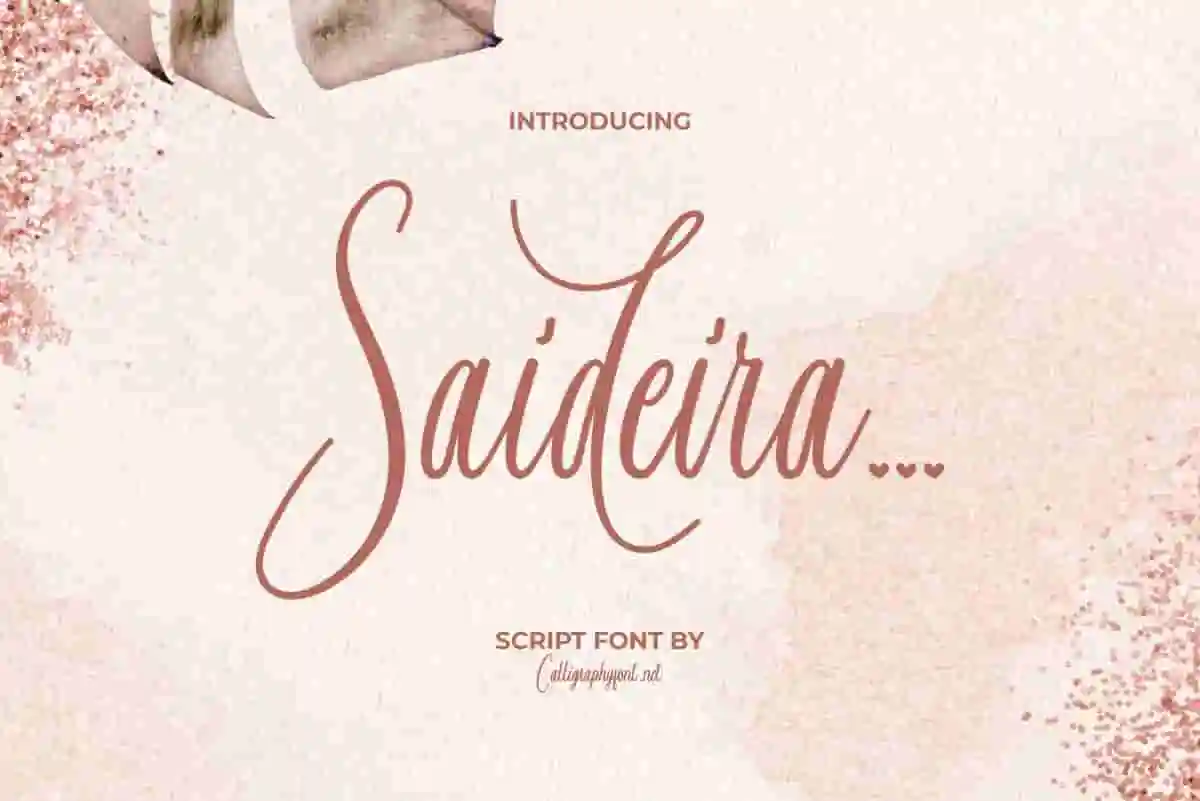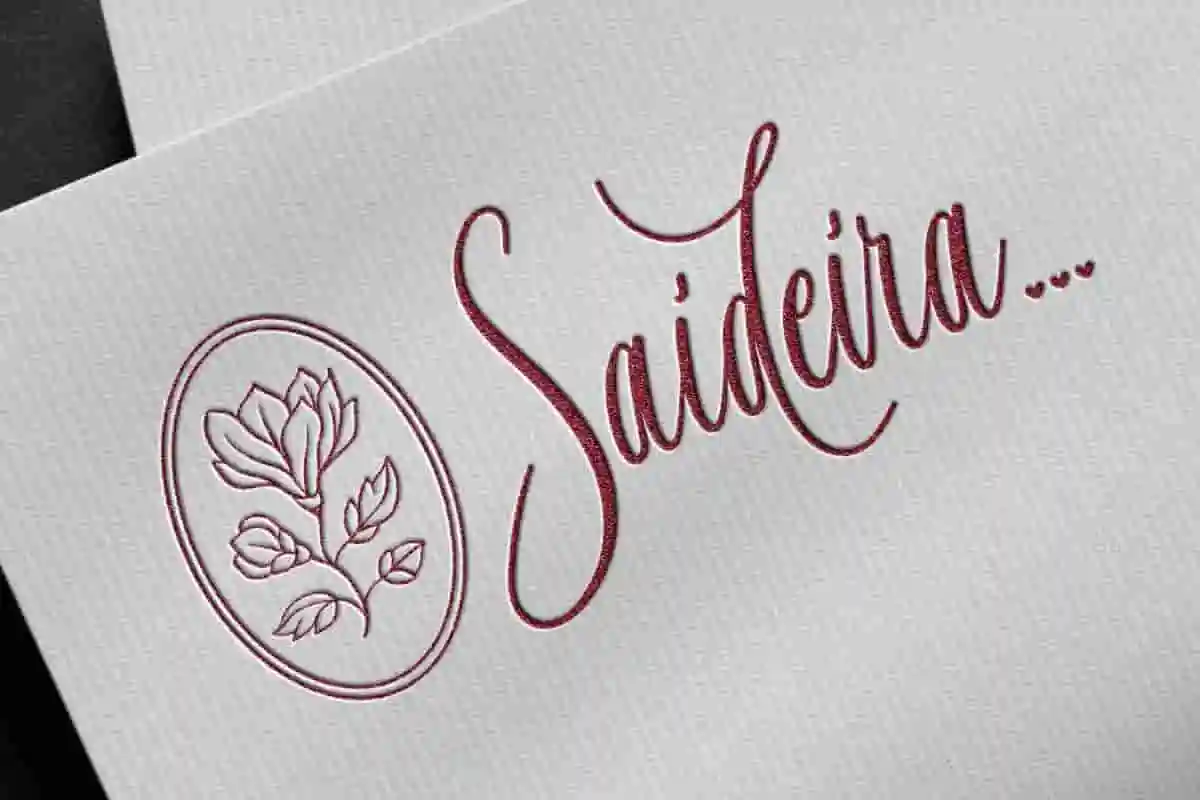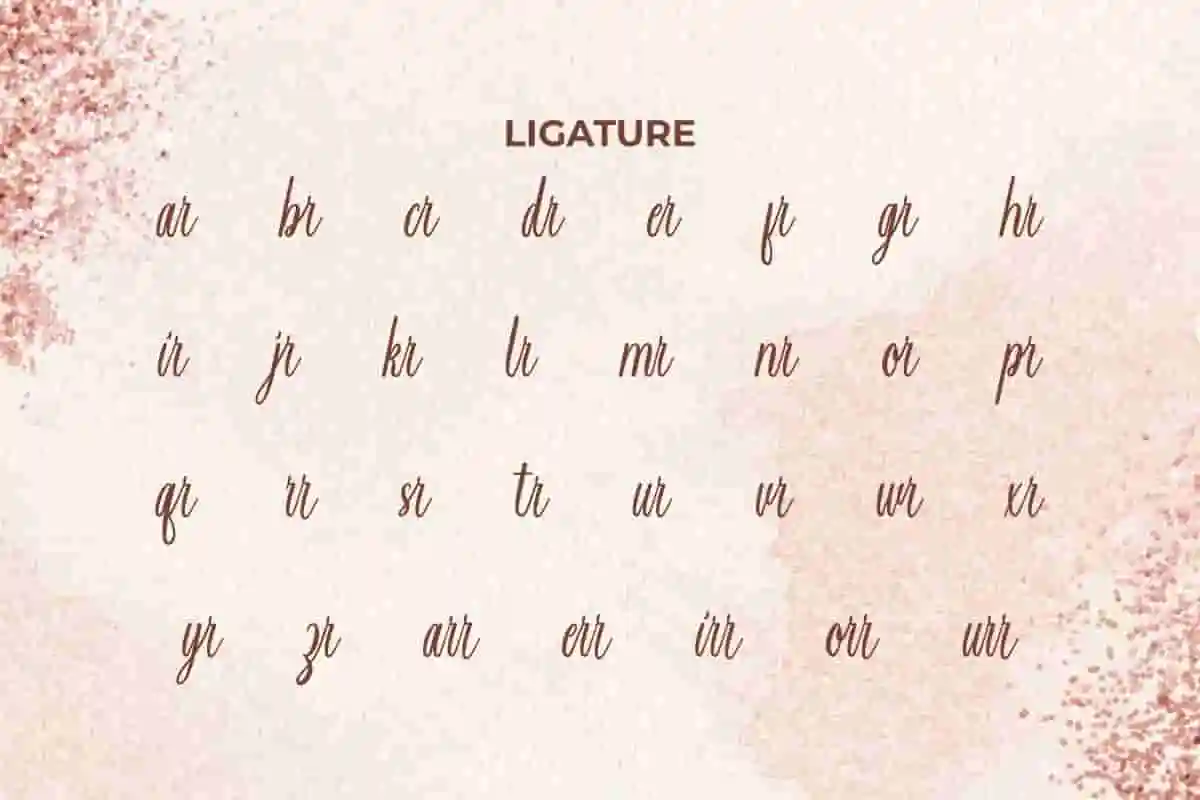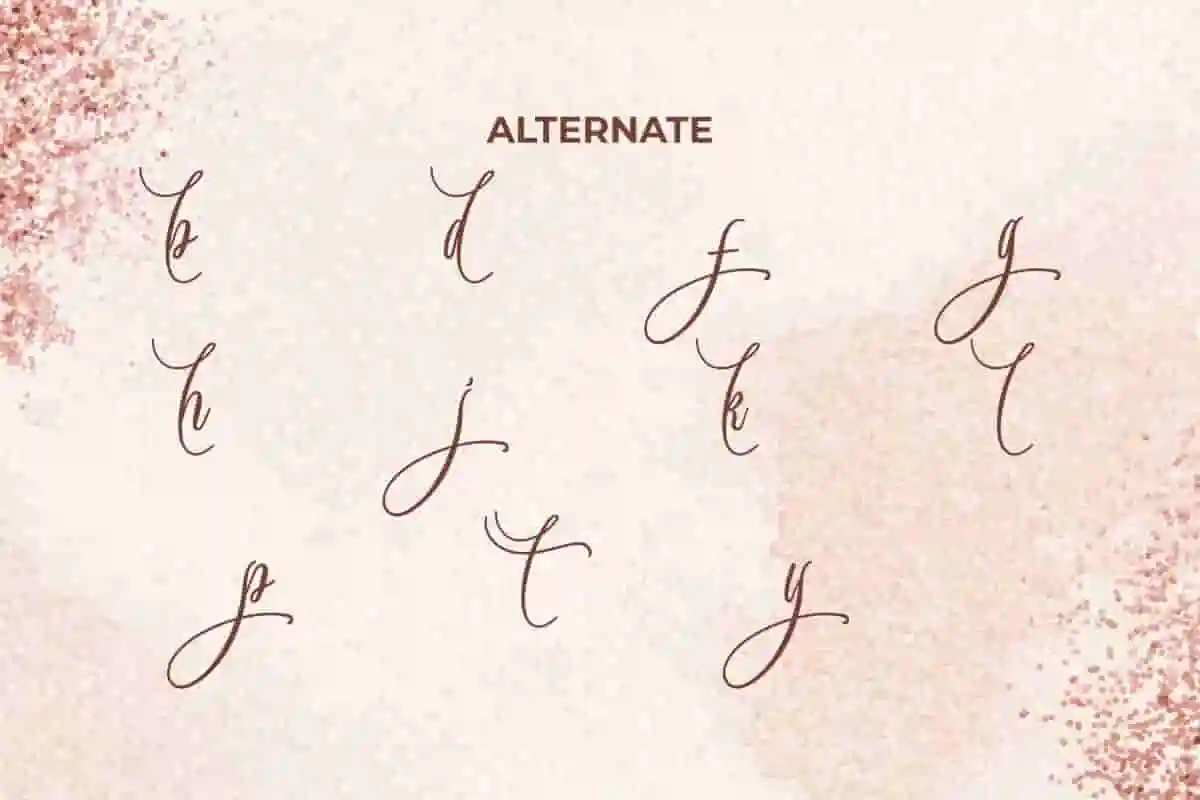
Saideira Calligraphy Font
Saideira Font is a beautiful and multipurpose script for branding, editorial design, or any kind of advertising purpose. We believe that every project deserves to be special, and this font makes it happen.
Saideira Font is an truly elegant modern script font that looks natural and simple with beautiful ligature and alternate characters for your next design project. Create art posters, brand identity, brochure, cards, invitations, label, logos, menu, mockup designs, product packaging, quotes, stationery, sticker, template, title, watermarks, websites, and much more.
Introducing Saideira Calligraphy Font — a beautifully handcrafted script typeface designed to bring grace, romance, and authenticity to your creative projects. Inspired by traditional calligraphy and modern lettering trends, Saideira delivers flowing strokes, delicate curves, and a natural handwritten feel that’s perfect for everything from wedding invitations to branding, quotes, logos, and social media content.
Elevate your creative projects with Saideira Calligraphy Font, a beautifully flowing script font that captures the art of handwritten elegance. Designed to bring warmth and personality, Saideira is perfect for those who want their designs to stand out with a soft, luxurious touch. hether you’re crafting wedding invitations, logos, branding materials, or social media graphics, Saideira’s smooth curves and delicate strokes make every word look effortlessly beautiful.
Looking for a script font that combines timeless elegance with modern flair? Meet Saideira Calligraphy Font, a beautifully handcrafted typeface that adds personality and sophistication to any design. Saideira features smooth, flowing strokes and delicate curves inspired by traditional calligraphy. Whether you’re working on wedding invitations, branding, social media graphics, or product packaging, this font transforms your text into a graceful work of art.
- Authentic Calligraphy Style
Saideira Font was created specifically to support and add to your font collection in your creativity. This font is basically inspired by beautiful and gentle calligraphy typography. It’s perfect for boutique, clothing brand, cosmetic, florist, homeware, jewelry, photography, skincare, spa salon, wedding, and whatever project requires a classy script touch.
Saideira Font comes with a full set of Uppercase and Lowercase Basic Characters, Number, a large range of Punctuation and Symbol. Also equipped with Ligature and Alternate characters which will raise your artistic designs to a higher level. It supports multilingual characters and ready to use both on Windows machine or Mac with simple installations. It’s tested to work well in the Adobe Apps (Illustrator, Adobe InDesign, Adobe Photoshop) CorelDraw, and others. PUA Encode Characters means you can access all the characters easily – Fully accessible without additional design software.